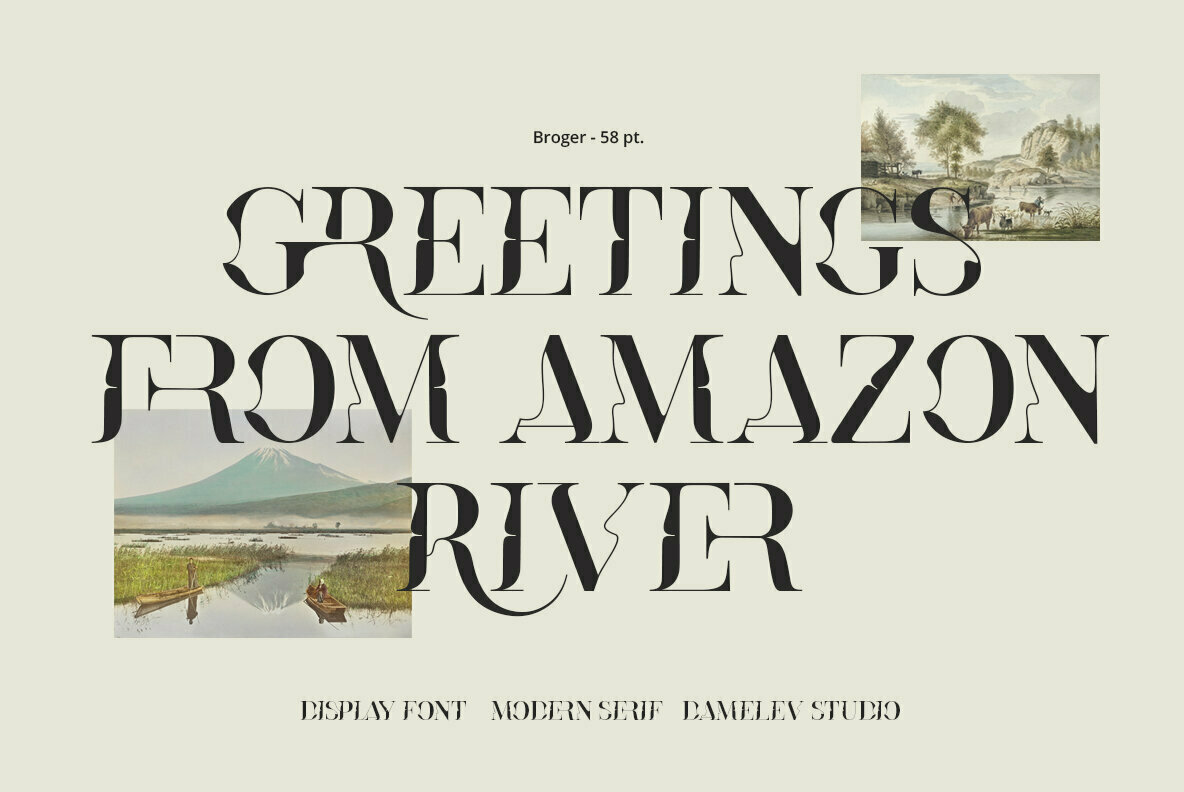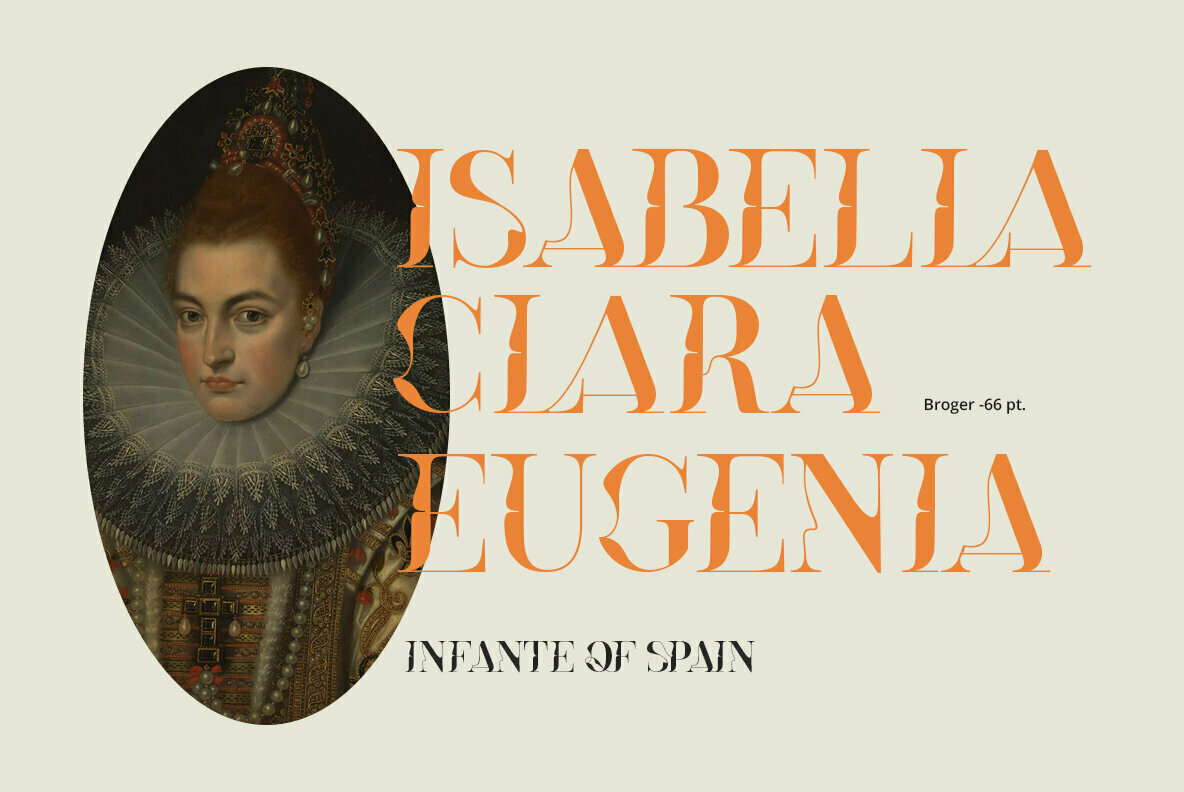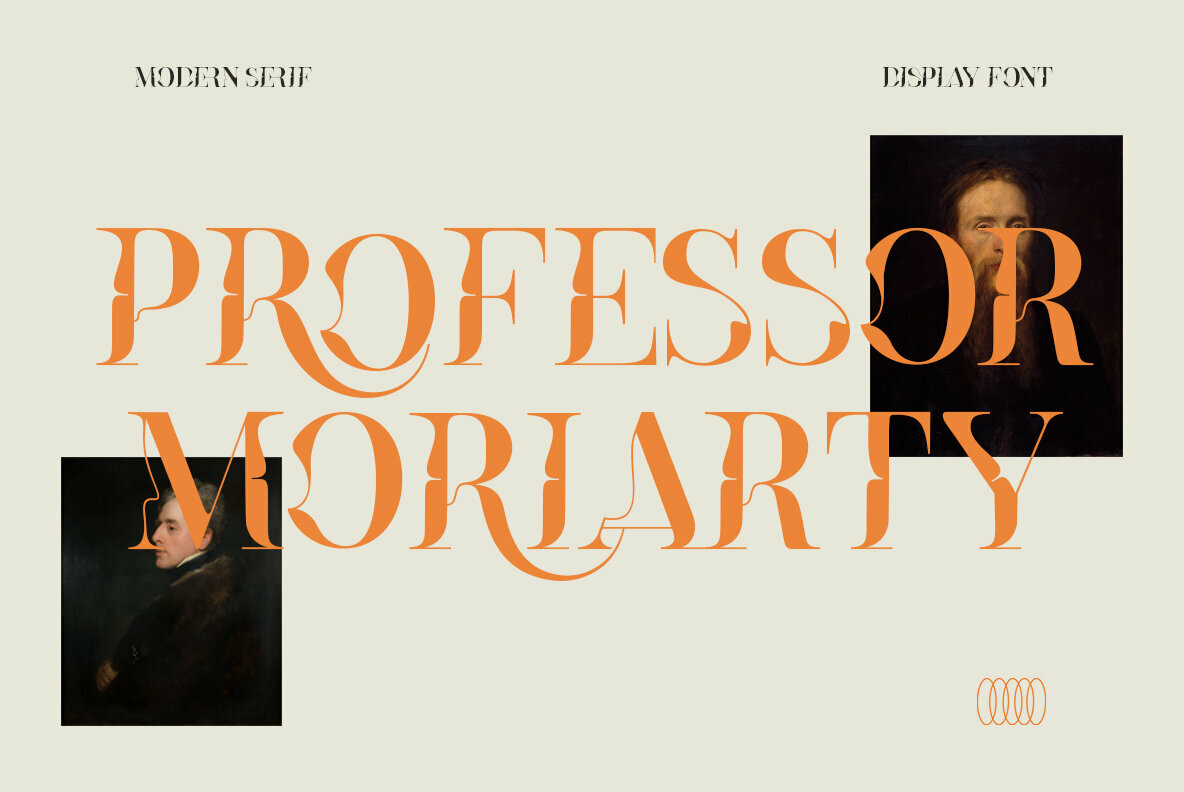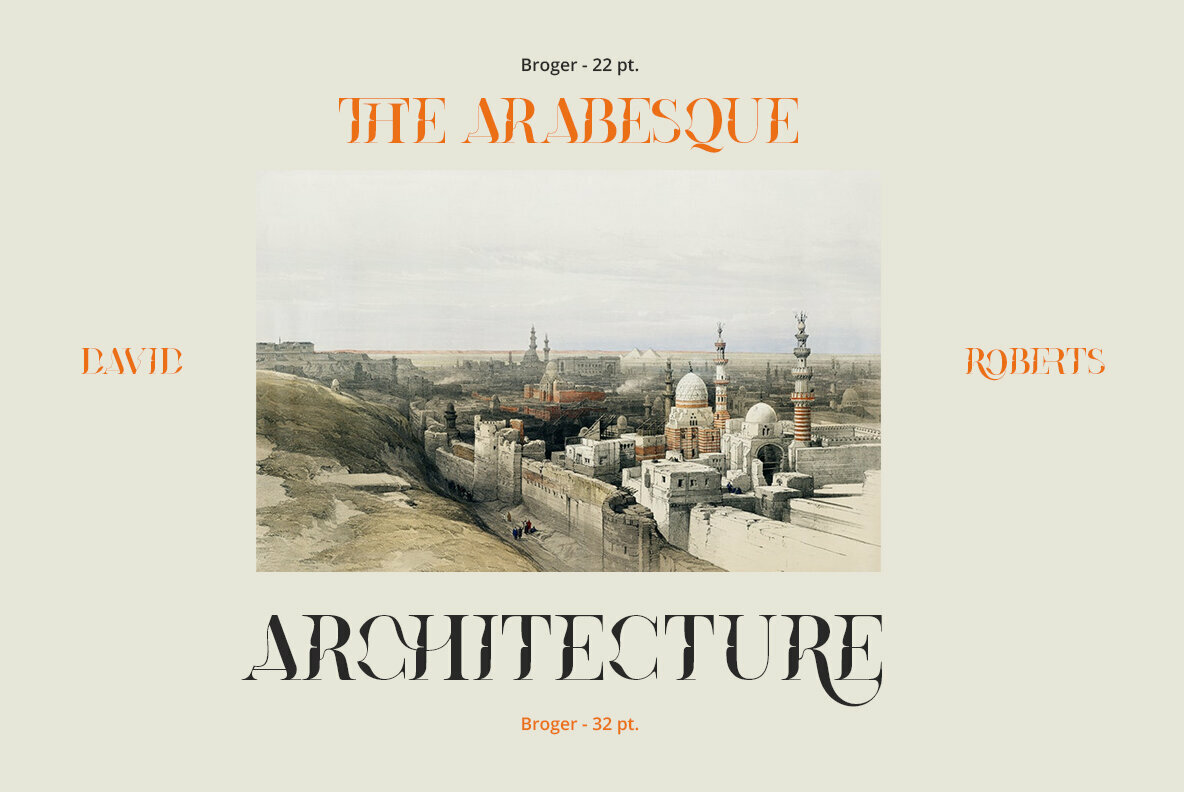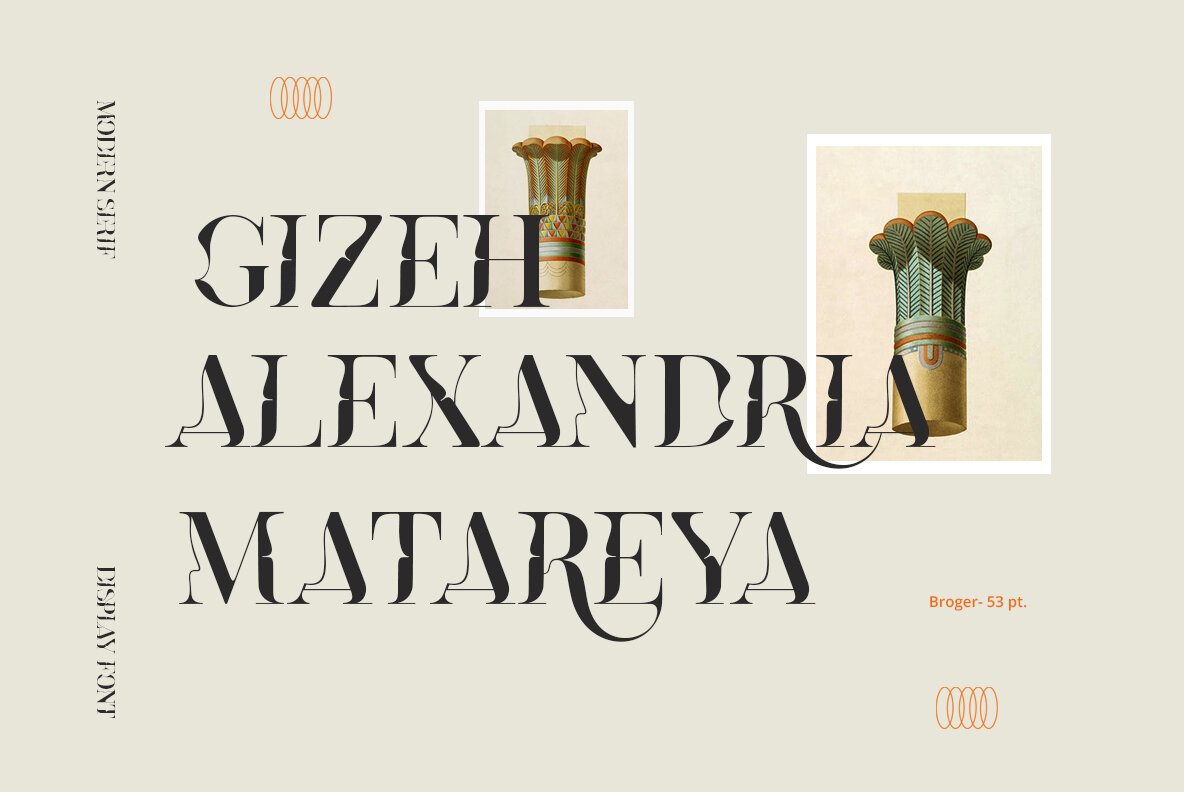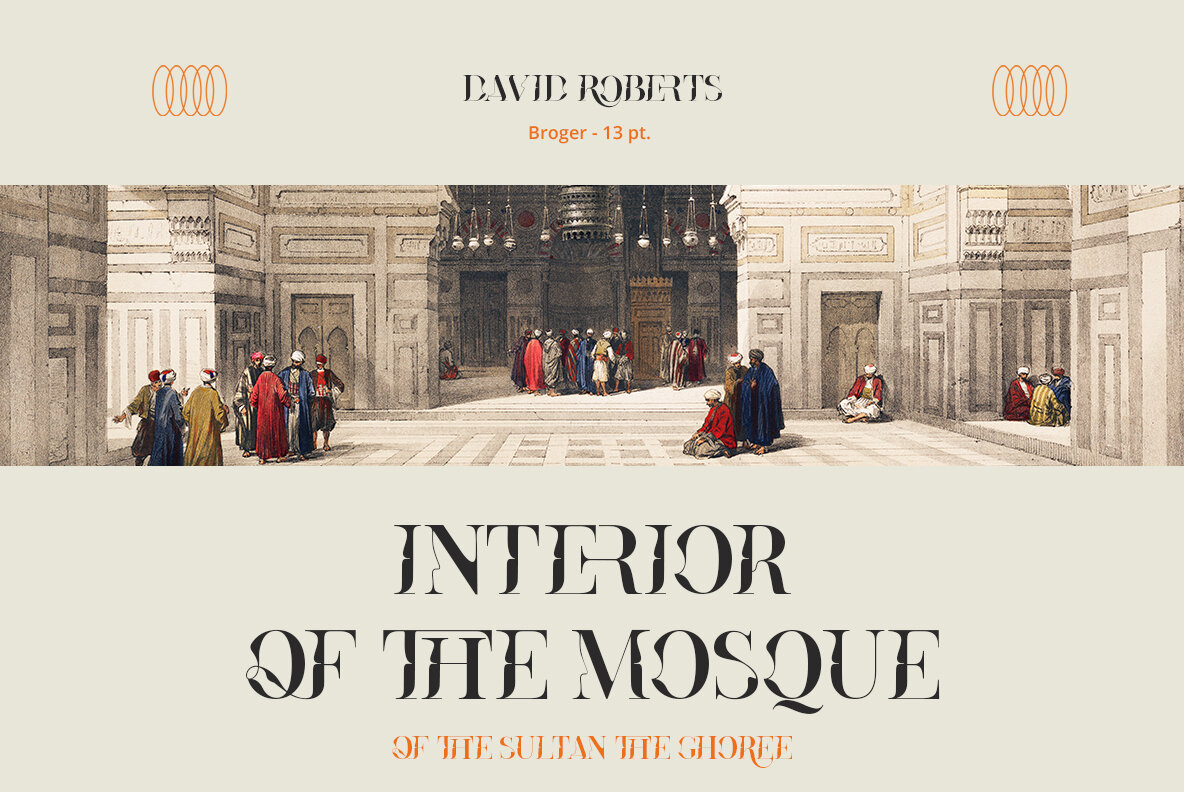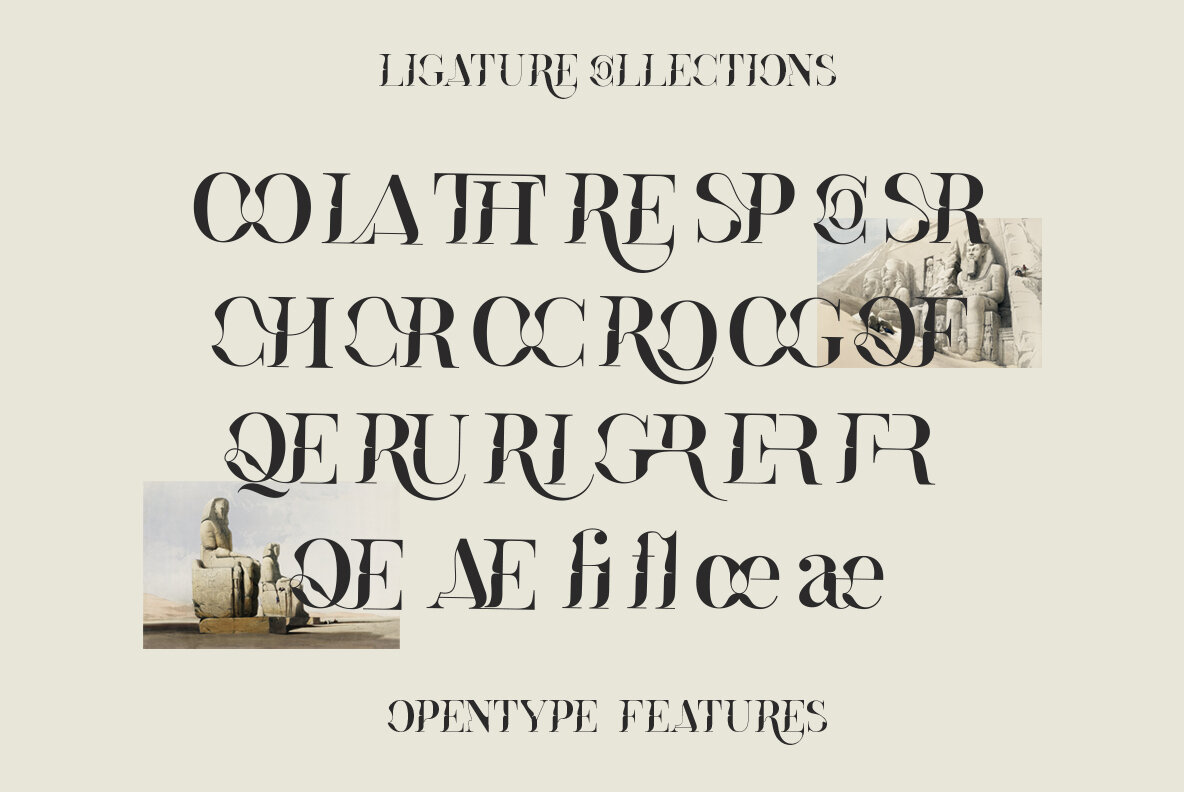
Broger Font
Broger
Broger Display is a typeface that demands attention with its elegant and creative design. It can be used for almost any project, from logo creation to headline titles or even wedding invitations! In addition you have access to OpenType features, multilingual features through most programs like Adobe Indesign CC, Illustrator CS5 & earlier versions of Photoshop.